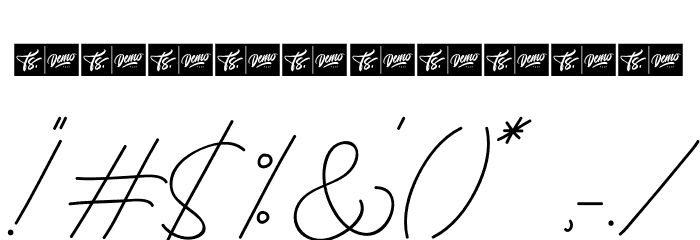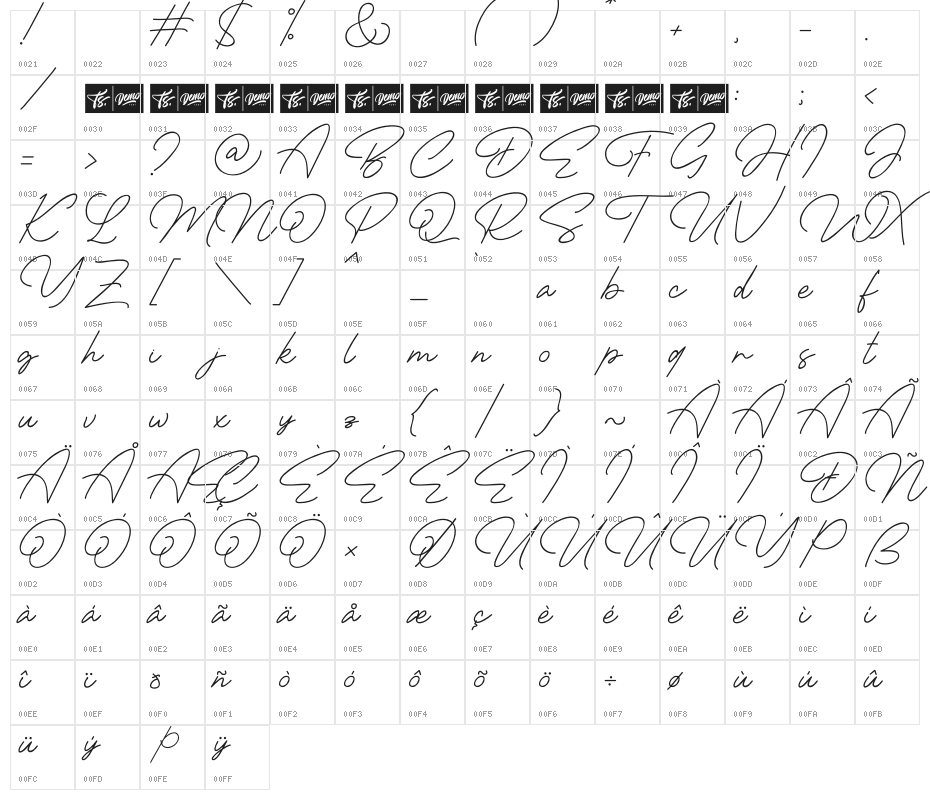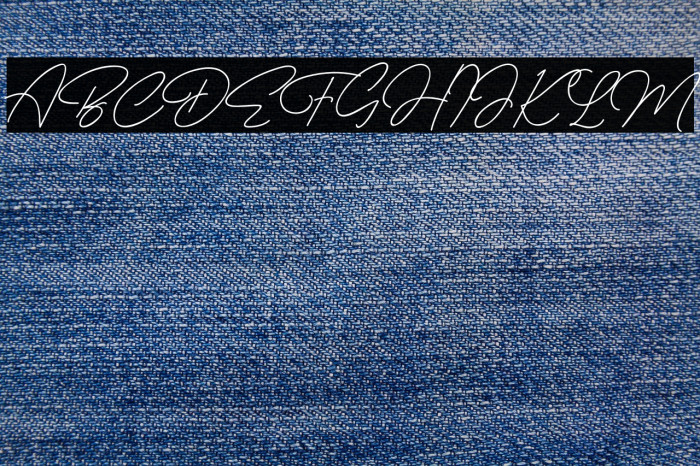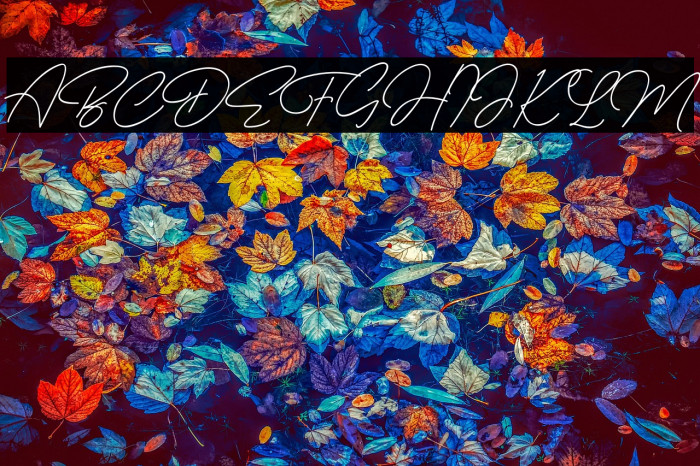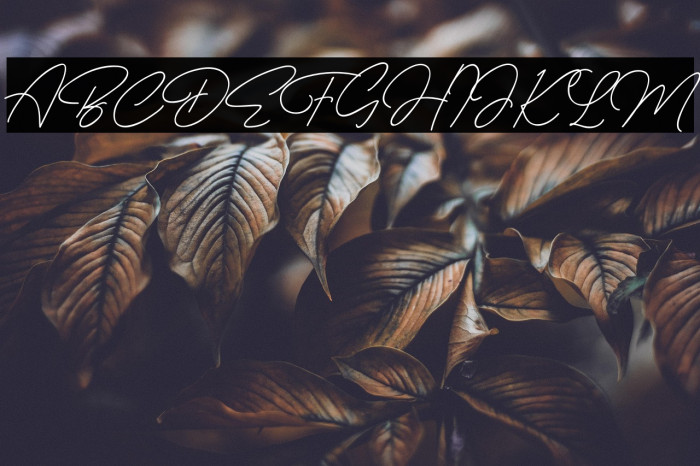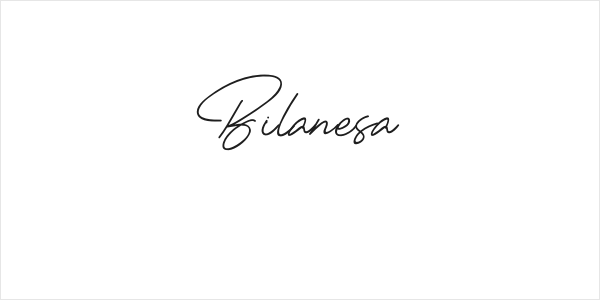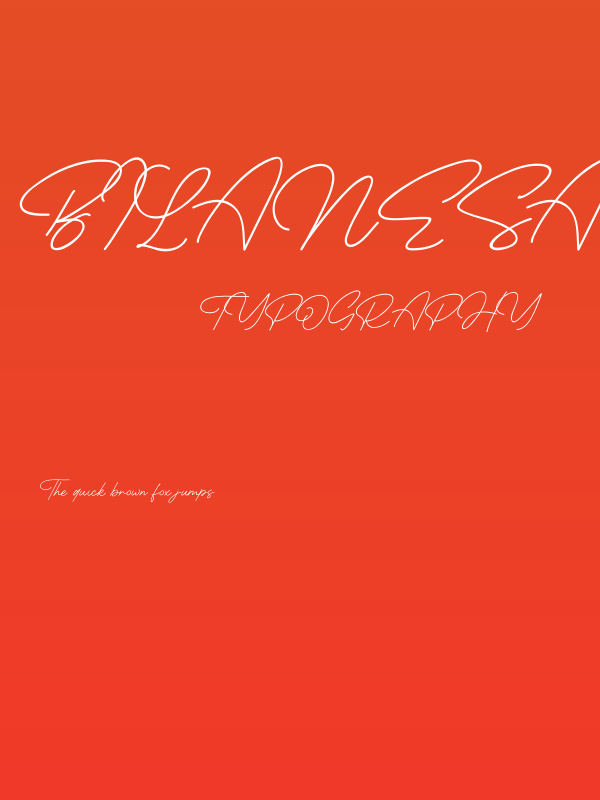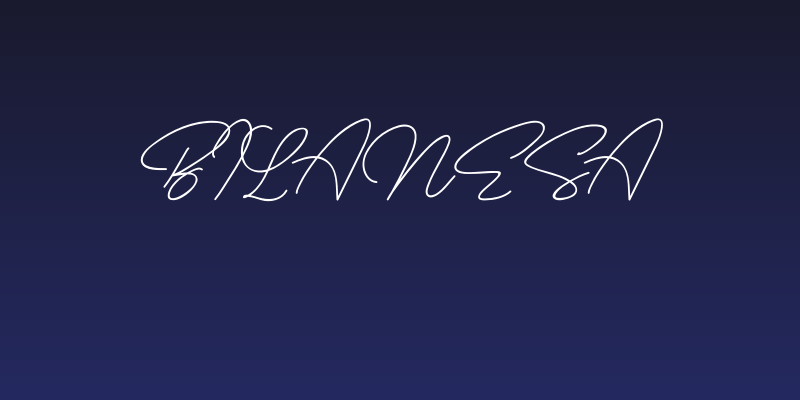
Bilanesa Font
Bilanesa Description
This font features a flowing, cursive style with elegant loops and swashes, giving it a handwritten appearance. The uppercase letters are slightly more ornate, with extended flourishes that add a touch of sophistication. The lowercase letters maintain a consistent flow, making the text appear connected and fluid. The numerals and special characters are designed to match the overall script style, ensuring a cohesive look across all elements. This font is ideal for projects that require a personal, elegant touch, such as invitations, greeting cards, or branding materials.